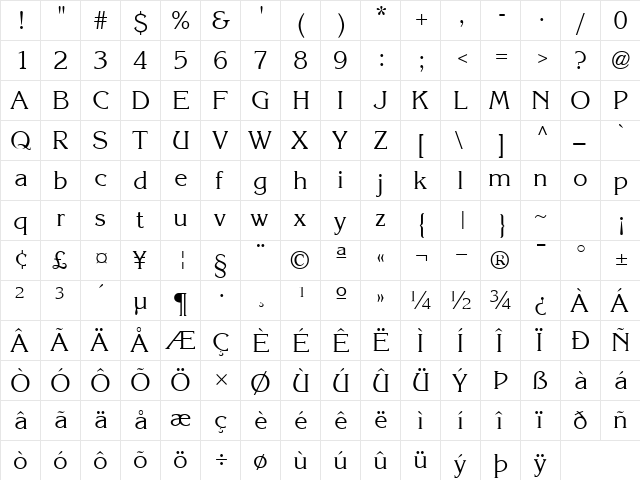
KaneLight Regular
Design Context for KaneLight Typeface
KaneLight takes a measured approach to typography — its balanced proportions and neutral character make it a reliable workhorse for both digital and print work. Its slender proportions lend an understated elegance to any composition.